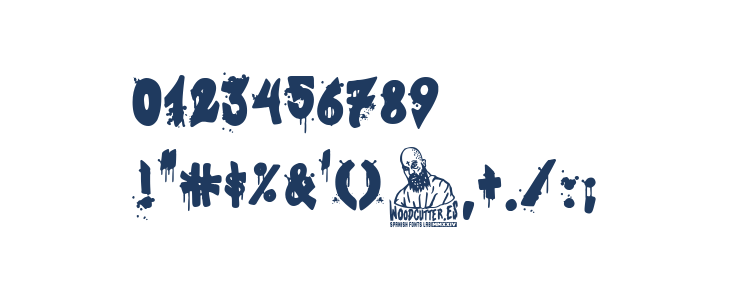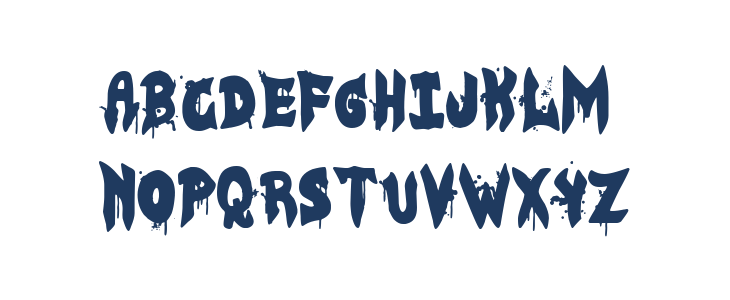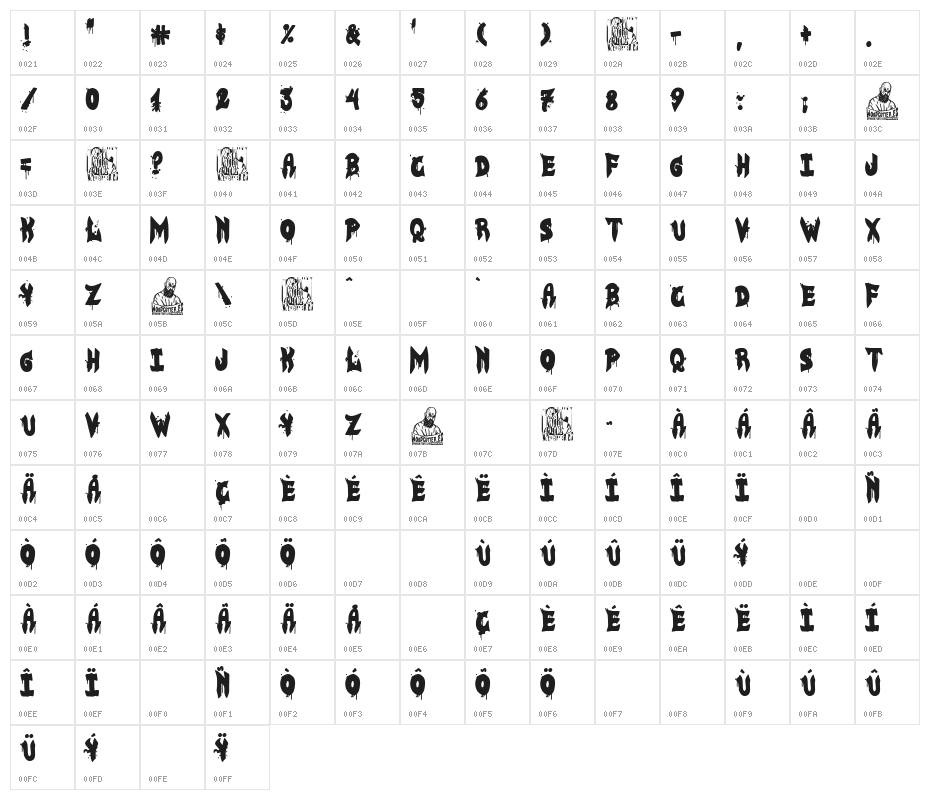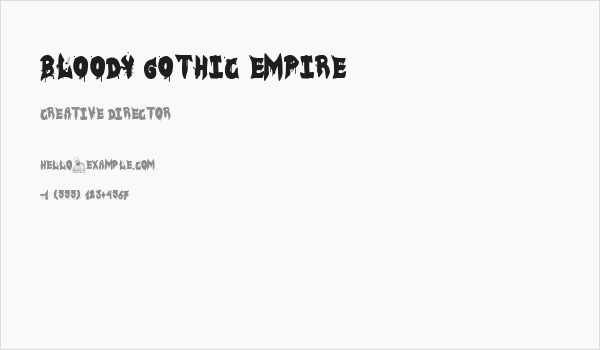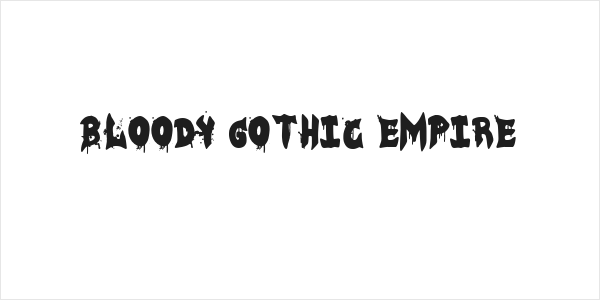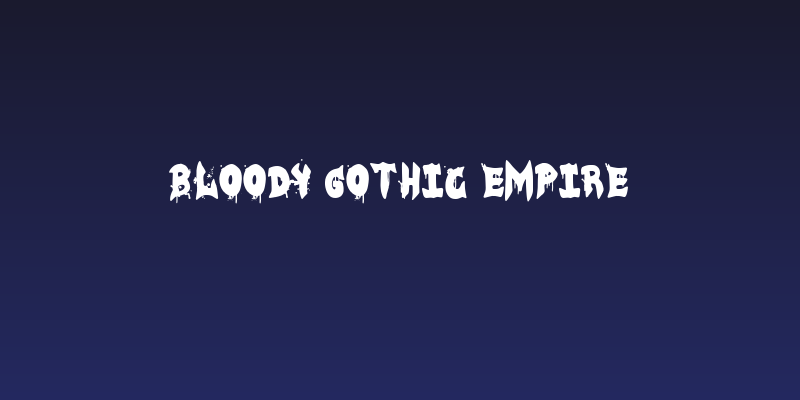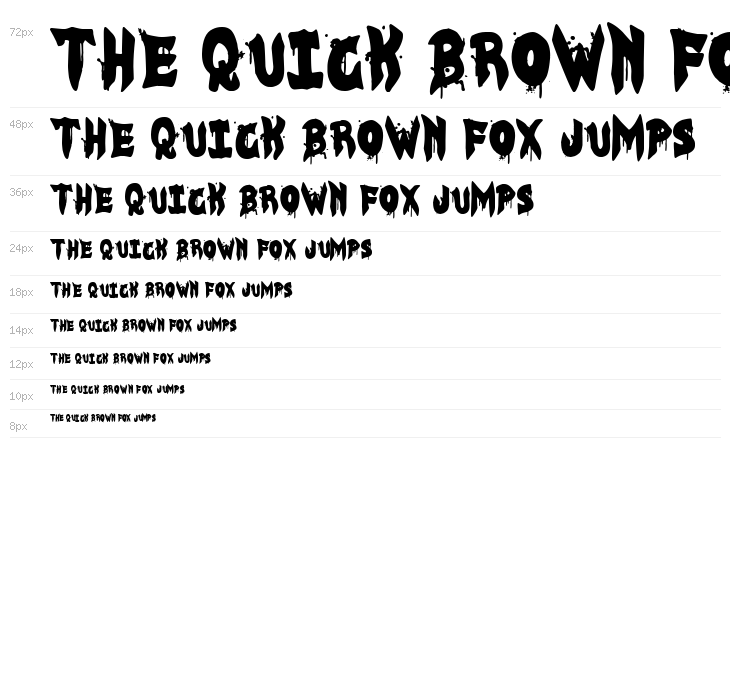
Bloody Gothic Empire Font
Bloody Gothic Empire Description
A bold, decorative display font with a dripping, blood-like effect on each character, evoking a horror or gothic atmosphere. The letterforms are uppercase, irregular, and have a hand-drawn, distressed appearance, with thick strokes and uneven edges.
| Overall Style | Decorative, Horror, Gothic |
| Use Case | Headlines, Posters, Logos, Event Branding |
| Proposed Projects | Halloween posters, horror movie titles, haunted house flyers, spooky event branding, themed party invitations. |